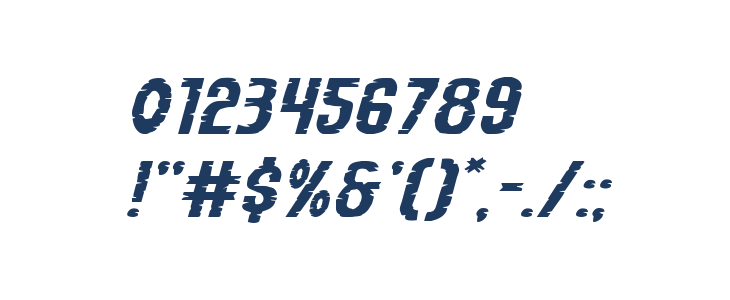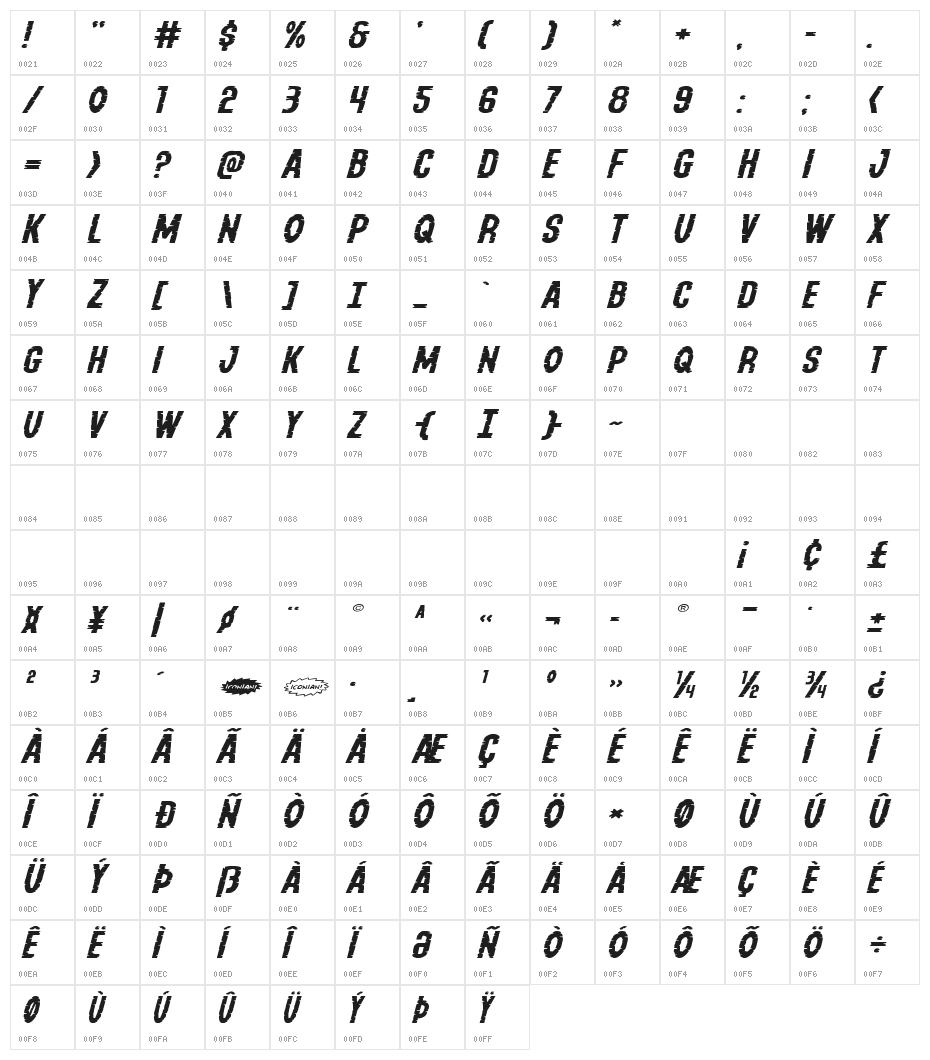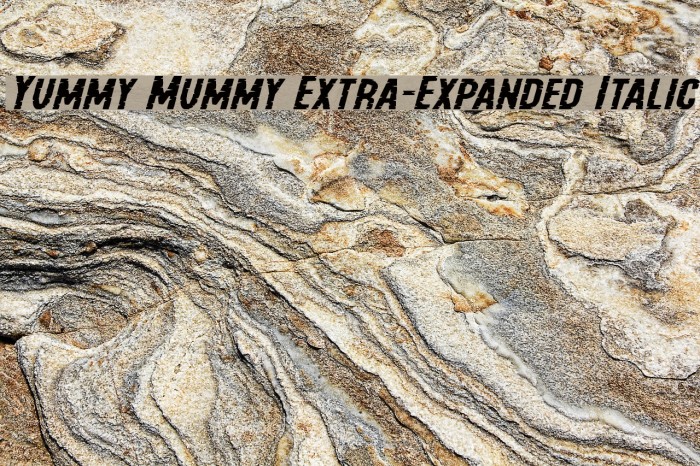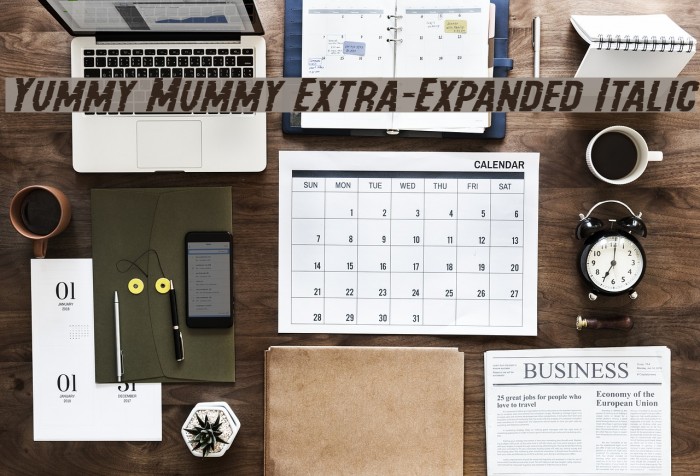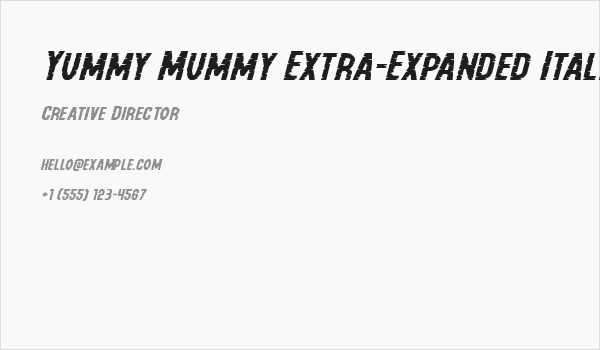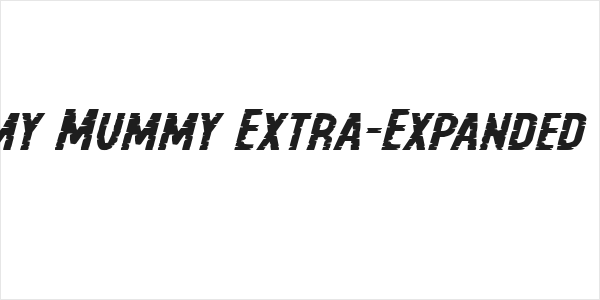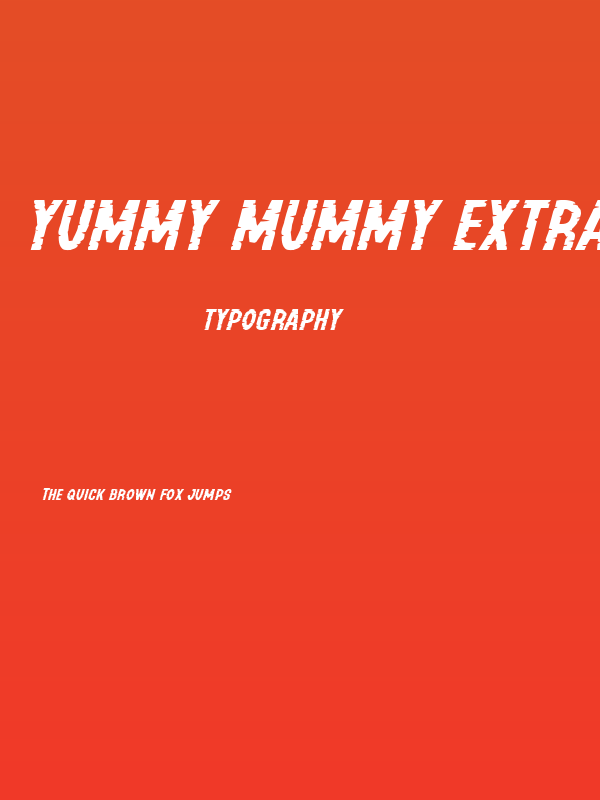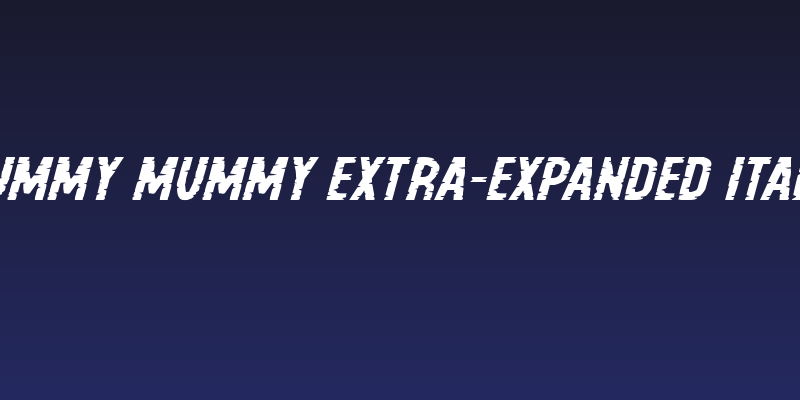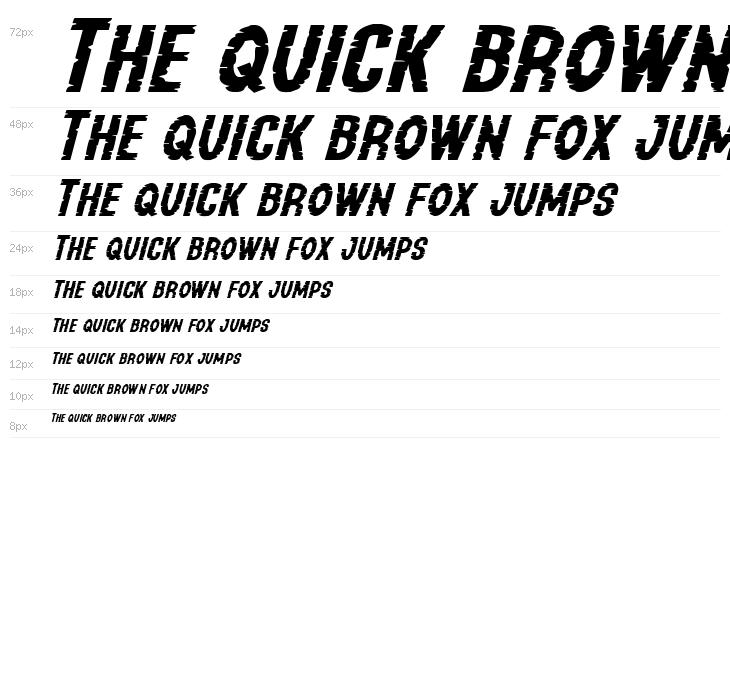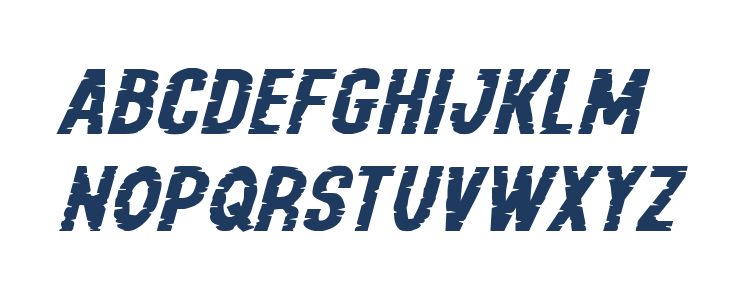
Yummy Mummy Extra-Expanded Italic Font
Yummy Mummy Extra-Expanded Italic Description
This font features a bold and dynamic style with an italic slant, giving it a sense of motion and energy. The characters are extra expanded, providing a wide and impactful presence. Each letter is crafted with a unique, jagged texture that adds a rugged and edgy feel. The uppercase and lowercase letters maintain a consistent design, ensuring readability while still offering a distinctive appearance. The numbers and special characters follow the same bold and textured style, making them suitable for attention-grabbing designs.
| Proposed Projects | Ideal for posters, headlines, and branding projects that require a bold and energetic look. |